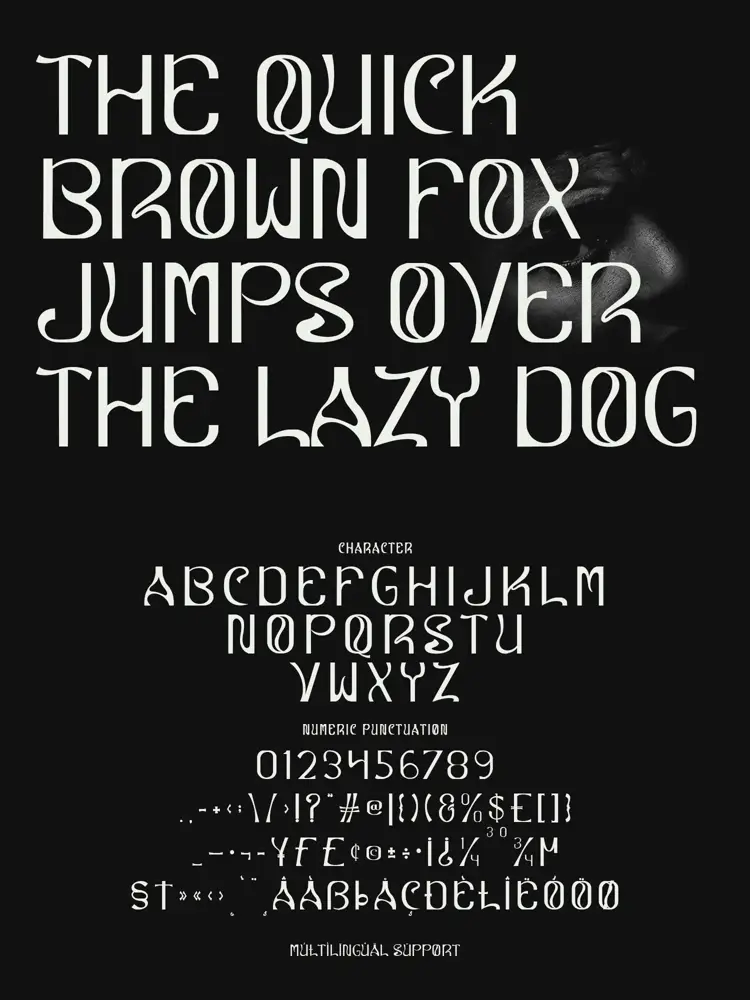
Gothic typography has a problem. Most medieval blackletter gothic fonts exist in one of two modes: rigidly historical or cheaply dramatic. Either they mimic 13th-century manuscripts with academic precision, or they pile on darkness for shock value alone. Neither approach serves contemporary designers well. Sunom Resub, released by Maulana Creative, breaks that pattern entirely. It takes the medieval blackletter gothic font tradition and runs it through something stranger, more fluid, and genuinely more interesting. The result is a typeface that feels both ancient and completely now.
What Makes Sunom Resub Different From Every Other Medieval Blackletter Gothic Font?
The answer starts with the strokes. Traditional blackletter construction relies on stiff, angular pen movements. Sunom Resub keeps the high-contrast terminal logic — thick downstrokes, sharp exits — but introduces what I call Fluid Gothic Morphology: a design principle where letterforms bend at structural points where classical blackletter would cut hard corners. The result reads as gothic to the eye but moves like something organic, almost biological. That tension between rigidity and liquidity is what makes this font so difficult to categorize — and so compelling to use.
Maulana Creative clearly studied the source material deeply. However, they made deliberate choices to pull away from pure historicism. The curves carry a psychedelic quality, almost as if the ink kept moving after the pen lifted. This gives Sunom Resub what I’d call a Haunted Manuscript Quality — the impression that someone wrote these letters under conditions that weren’t entirely rational. That quality is extremely hard to fake and even harder to design intentionally.
The Fluid Gothic Spectrum: Placing Sunom Resub in Typography History
To understand where Sunom Resub sits, you need a framework for gothic fonts that goes beyond “old” versus “modern.” I use the Fluid Gothic Spectrum — a scale from Rigid Historical at one end to Liquid Contemporary at the other. Most blackletter revivals cluster toward the rigid end. They prioritize legibility as period-accurate reproduction above all else. A handful push toward liquid, often sacrificing readability for style. Sunom Resub lands in an unusually productive middle zone: recognizably gothic in structure, fluid enough to feel genuinely original.
This positioning matters commercially. Brands, musicians, and art directors who want a medieval blackletter gothic font for real production work need more than atmosphere. They need a font that functions — in logos, on merchandise, in editorial layouts. Sunom Resub delivers that functionality without diluting its edge. That balance is rarer than it should be.
High Contrast Terminals and What They Signal
High contrast terminals are the signature structural feature of blackletter design. They create the dramatic thick-to-thin transitions that make gothic type instantly recognizable. Sunom Resub executes these with precision, but adds an unexpected softness at the exit points. So the terminal arrives sharply, then releases with a slight curve. This small detail changes the emotional register of the entire typeface. It moves Sunom Resub away from aggression and toward something more unsettling — sophisticated, controlled darkness rather than blunt gothic drama.
Think about what that means for a brand. If you’re designing for a luxury horror editorial, a dark fantasy game, or an independent music label, you want gothic weight without looking like a Halloween flyer. Sunom Resub gives you exactly that distinction. The high contrast terminals carry the authority; the fluid curves carry the elegance.
Psycho-Medieval Design Language: A New Aesthetic Category
I want to introduce a term here that I think describes Sunom Resub’s broader aesthetic positioning: Psycho-Medieval Design Language. This category covers visual work that draws on medieval manuscript traditions — blackletter construction, dense texture, ink-on-vellum contrast — but distorts them through a contemporary, psychedelic, or surrealist lens. Think of artists who revisit illuminated manuscript aesthetics through a post-punk or experimental graphic design filter. Sunom Resub is the typographic embodiment of that movement.
This isn’t a fringe aesthetic. Psycho-medieval visual language currently appears across luxury fashion branding, album artwork for everything from doom metal to hyperpop, editorial design in independent print culture, and increasingly in premium digital product design. Designers working in these spaces have historically had to cobble together solutions from fonts that weren’t quite right. Sunom Resub closes that gap.
Who Actually Needs This Font?
The use cases are more varied than the gothic label suggests. Book cover designers working in dark literary fiction will find Sunom Resub handles both title display and chapter heading roles well. Brand strategists developing identities for craft beverage companies, independent record labels, or mystical wellness brands will appreciate its versatility. Game studios building medieval or dark fantasy visual systems will find that it holds up at large display sizes. Motion designers who work with kinetic type will discover that the fluid forms animate particularly well.
Can I use Sunom Resub for multilingual projects?
Yes. Sunom Resub includes a wide range of accented characters and special symbols, making it suitable for non-English design work and global commercial projects.
How does Sunom Resub perform at large display sizes?
Sunom Resub was designed as a display typeface, so it performs optimally at large sizes. Its structural integrity holds at headline and poster scale, and its high-contrast terminals remain crisp and dramatic at large display sizes and beyond.